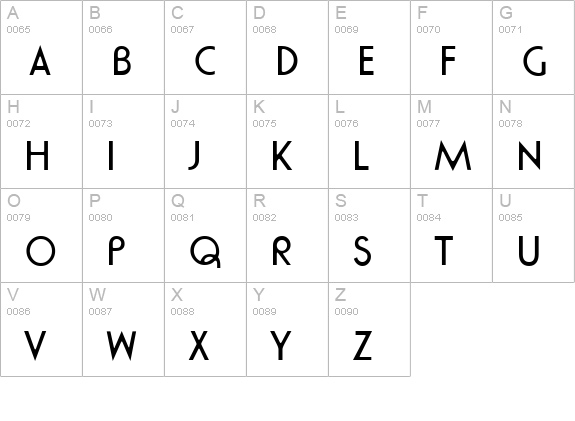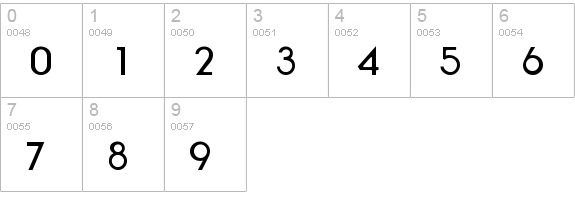
R791-Deco-Regular Font Details
R791-Deco-Regular is the standard, neutral variant in the R791 typeface family \xE2\x80\x94 well suited to general body text, paragraphs, and standard typographic work.
R791-Deco-Regular is a stunning and versatile font that combines classic Art Deco elements with a modern twist. This font exudes elegance, sophistication, and a touch of retro charm, making it perfect for a wide range of design projects. Its clean lines and geometric shapes give it a timeless appeal that is sure to make any text stand out. What's even better is that R791-Deco-Regular is available for free download at FontsMarket.com. This means that you can easily add this stylish font to your collection without breaking the bank. Whether you're working on branding, invitations, posters, or any other design project, R791-Deco-Regular is sure to elevate your work and leave a lasting impression. Download it today and let your creativity flow with this beautiful and free font.